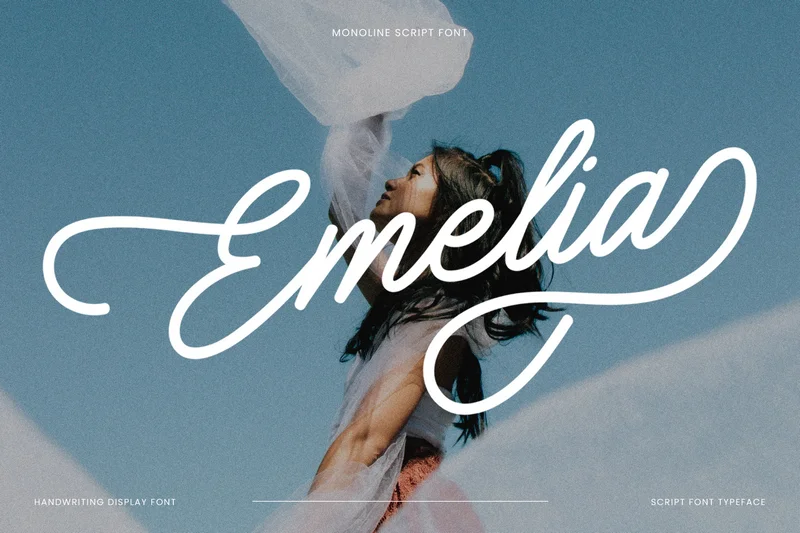
Emelia – Handwriting Font
Emelia is a stylish handwriting font that blends soft elegance with playful confidence. Designed with smooth monoline strokes and a natural flow, this script font evokes the charm of handwritten notes with a modern twist. Whether you’re crafting a quote, designing for fashion, or branding a creative business, Emelia adds a personal and professional feel to your work.
Uppercase & Lowercase Letters
Extensive Special Characters
Smooth Monoline Style
Ligatures & Alternates
Personal Branding
Logo Design
Social Media Posts
Wedding Invitations
Quotes & Posters
Fashion & Lifestyle Design
Product Packaging
Instagram Feed & Story Templates